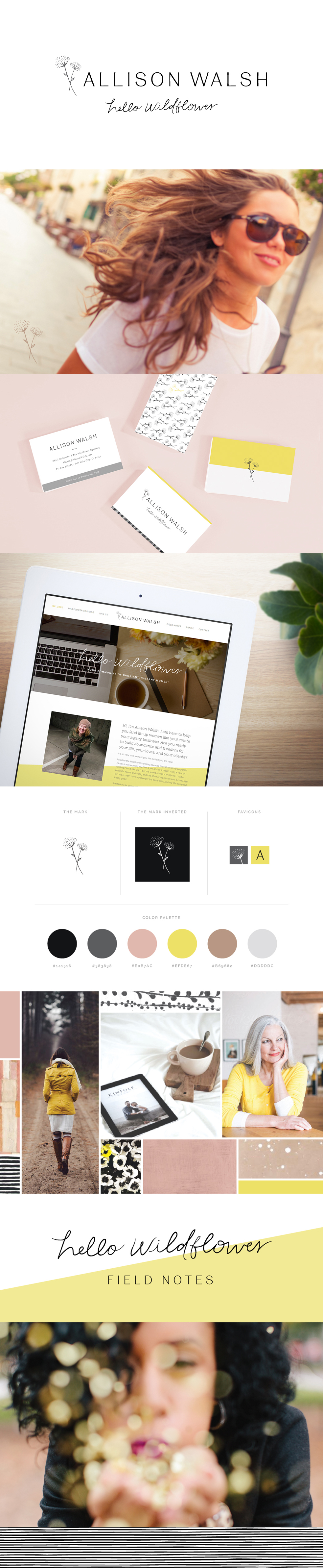
Allison Walsh Branding
Hello! I am very excited to show you the final branding that I created for Allison Walsh. Her website that I designed launched last week and I am really proud of how everything turned out! Allison is a warm, passionate, and caring woman that has been a pleasure to work with. Her goal with this endeavor is to create a supportive community of vibrant and brilliant women (wildflowers) - and to help them build their legacy businesses and cultivate their wildest dreams. This community is called The Wildflower Uprising and I will show more of that branding later on!
From the beginning Allison wanted her brand to evoke comfort, kindness, and authenticity. She wanted the brand to have a sophistication that is still relatable - and for it to feel feminine, though not overly so. Part of what I love about my job is the challenge of creating this kind of balance. The moodboard I made early on for Allison really led the way as we created the rest of the branding. I enjoyed working with the pop of yellow and muted pink, and really loved creating her minimal but still personable logo. Take a look below to see my branding build-out, and be sure to check out her website to see everything in action!